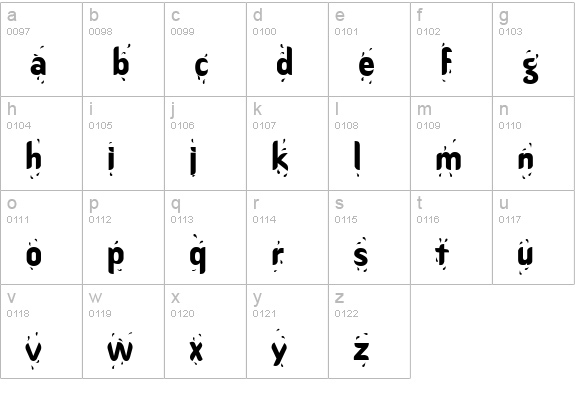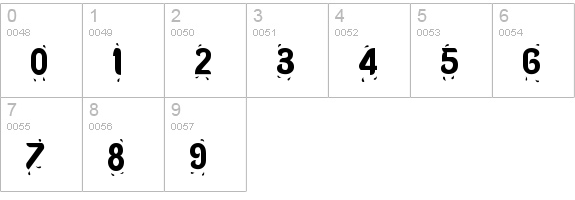
Teardrops Font Details
Introducing Teardrops font, a stunning and unique typeface that will add a touch of elegance to any design project. The delicate teardrop shapes of this font give it a graceful and whimsical feel, perfect for adding a touch of sophistication to invitations, logos, and more. What makes Teardrops font even more special is that it is available for free! You can easily download this beautiful font at FontsMarket.com and use it in your projects without any cost. Don't miss out on the opportunity to enhance your designs with the beauty of Teardrops font. Download it now and let your creativity soar!